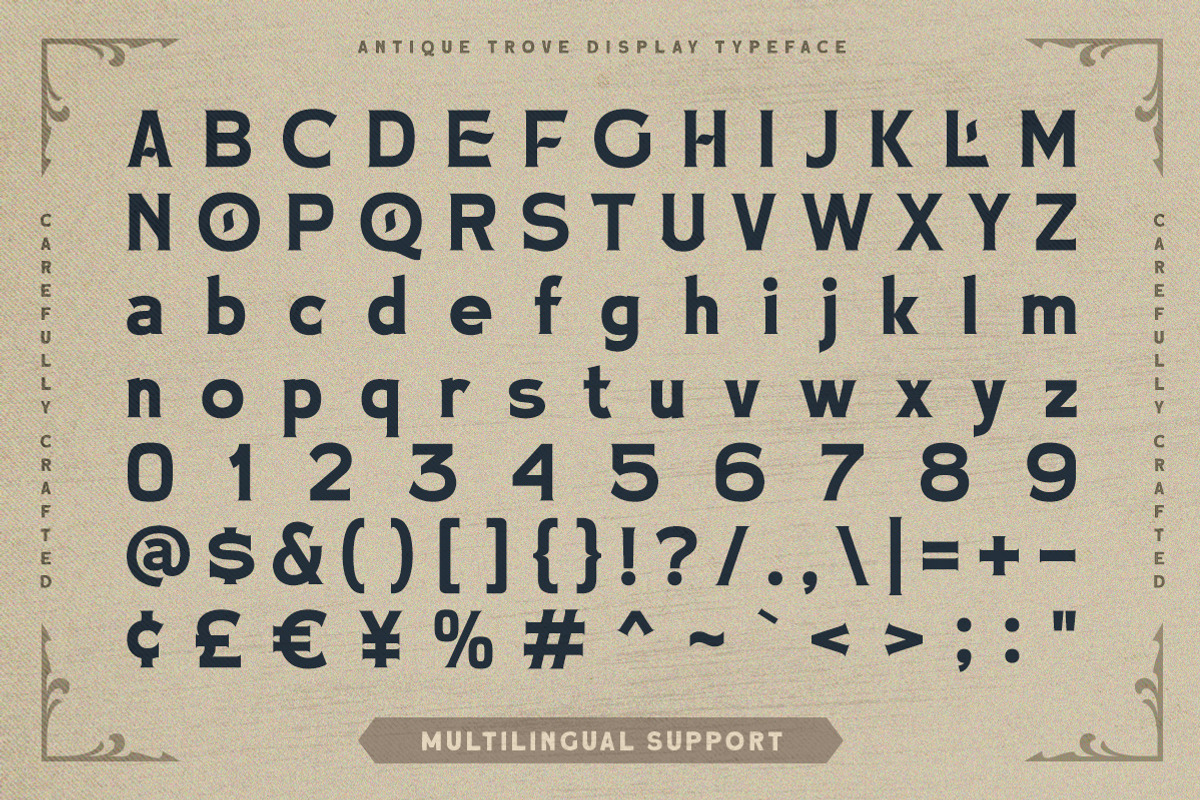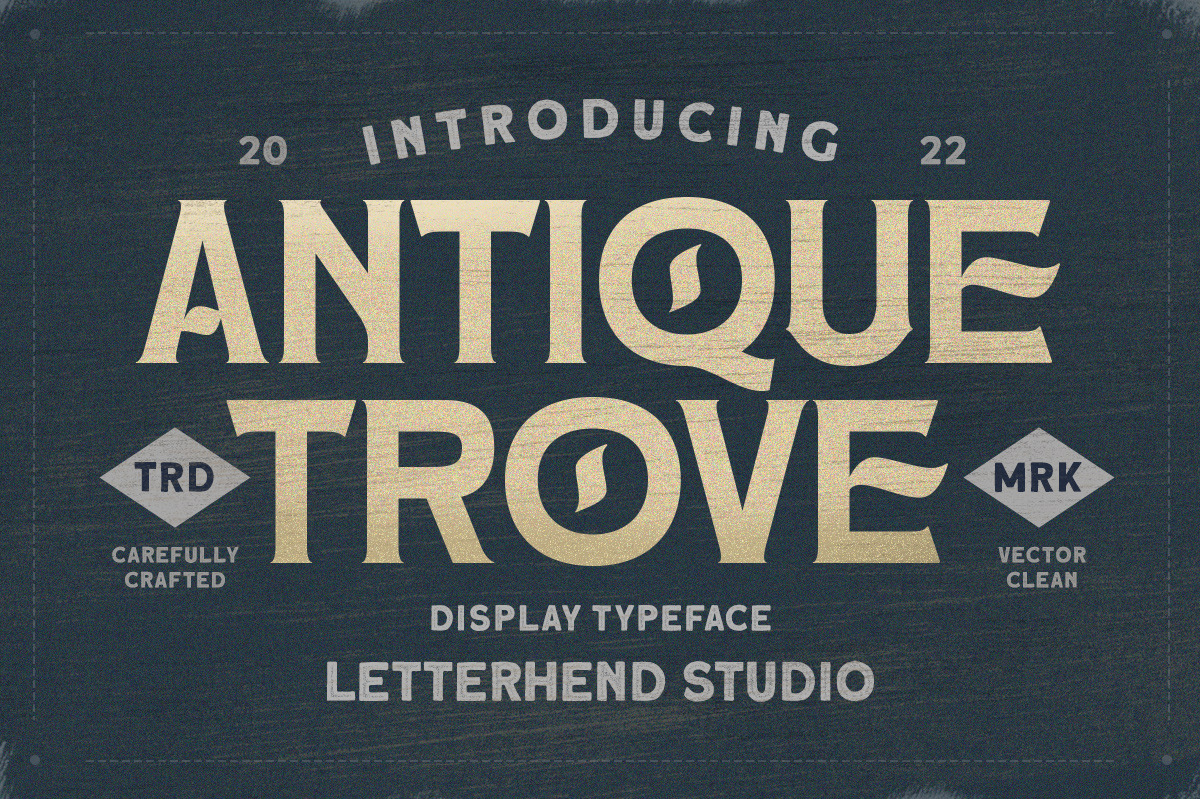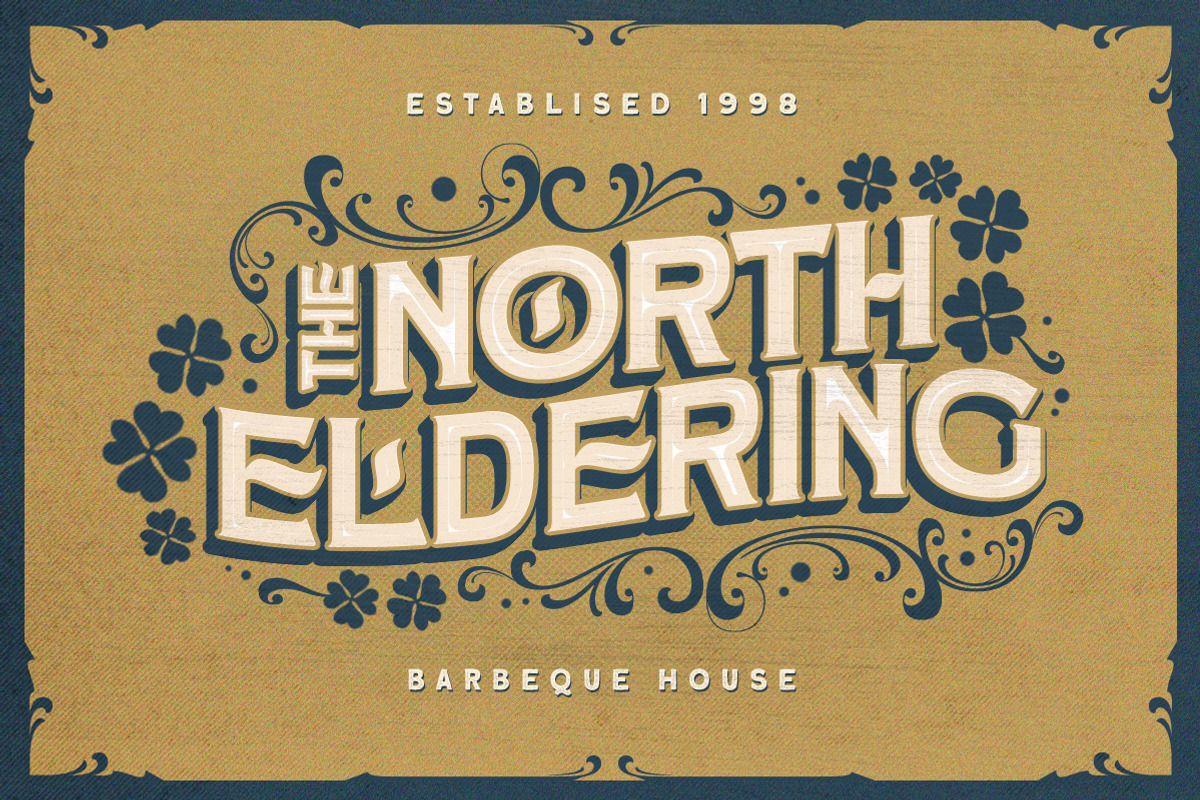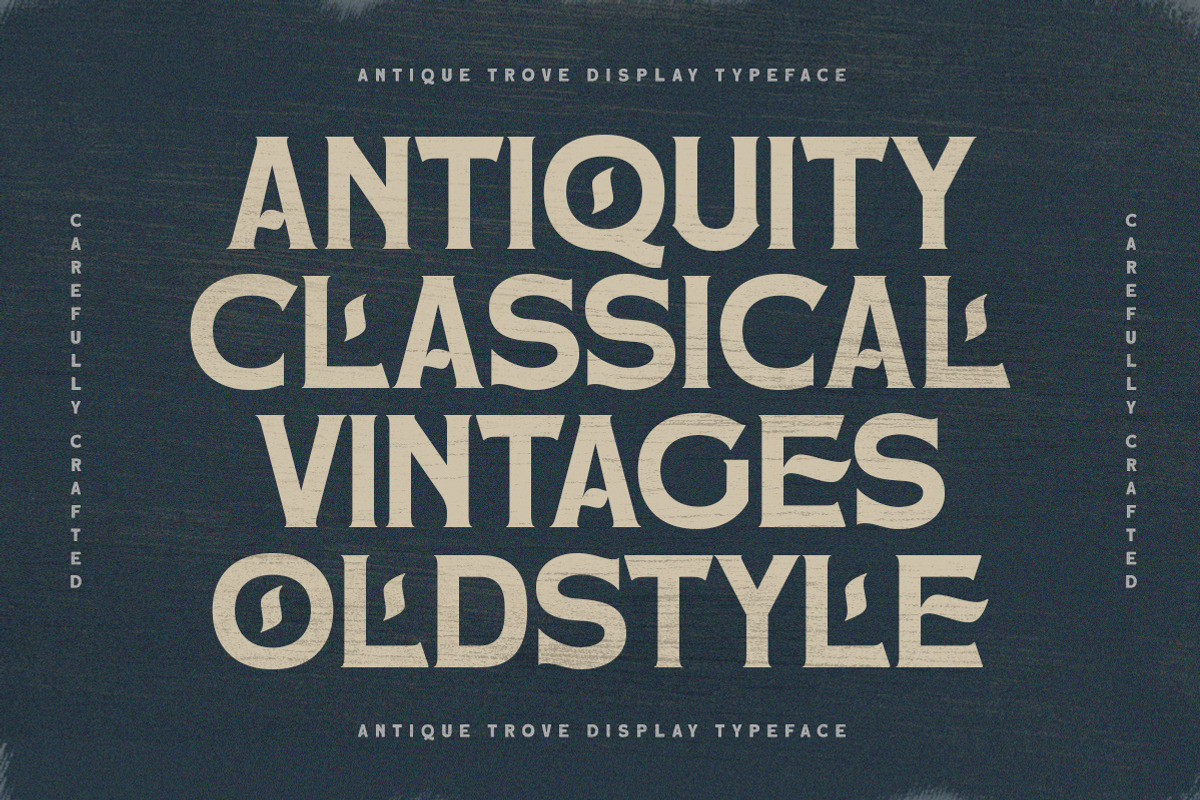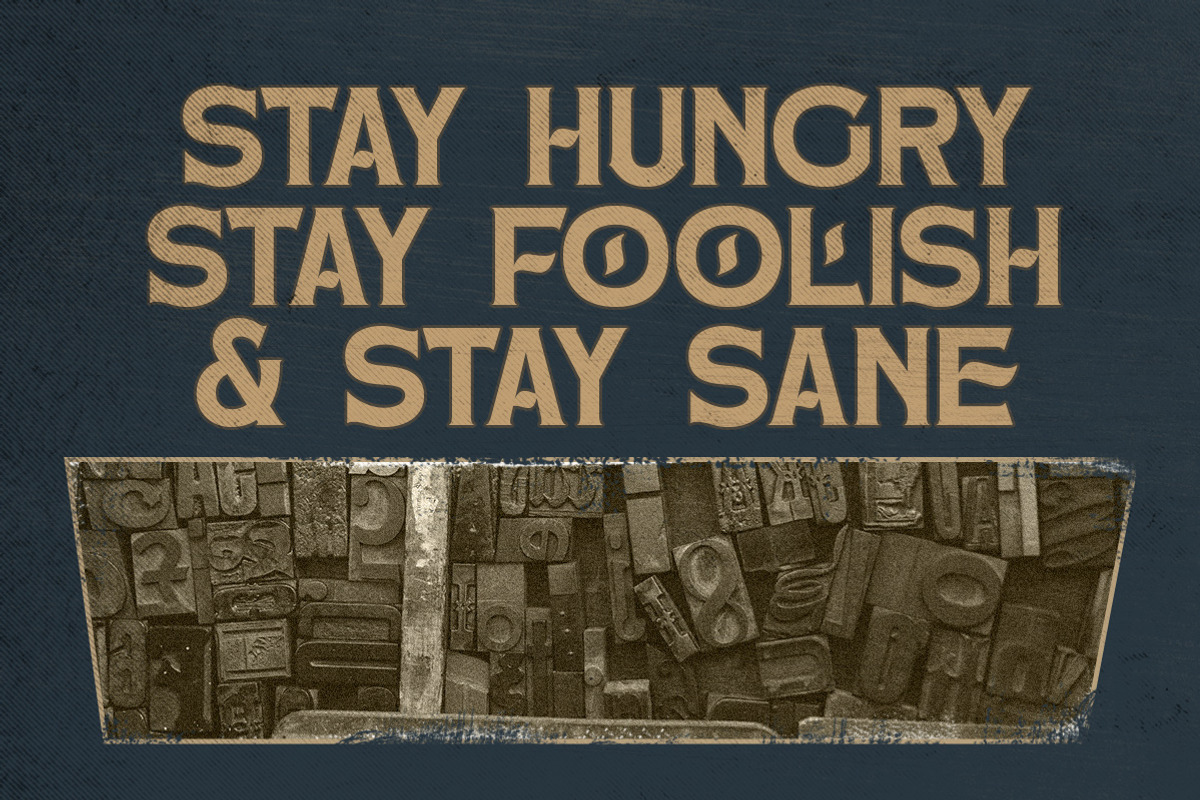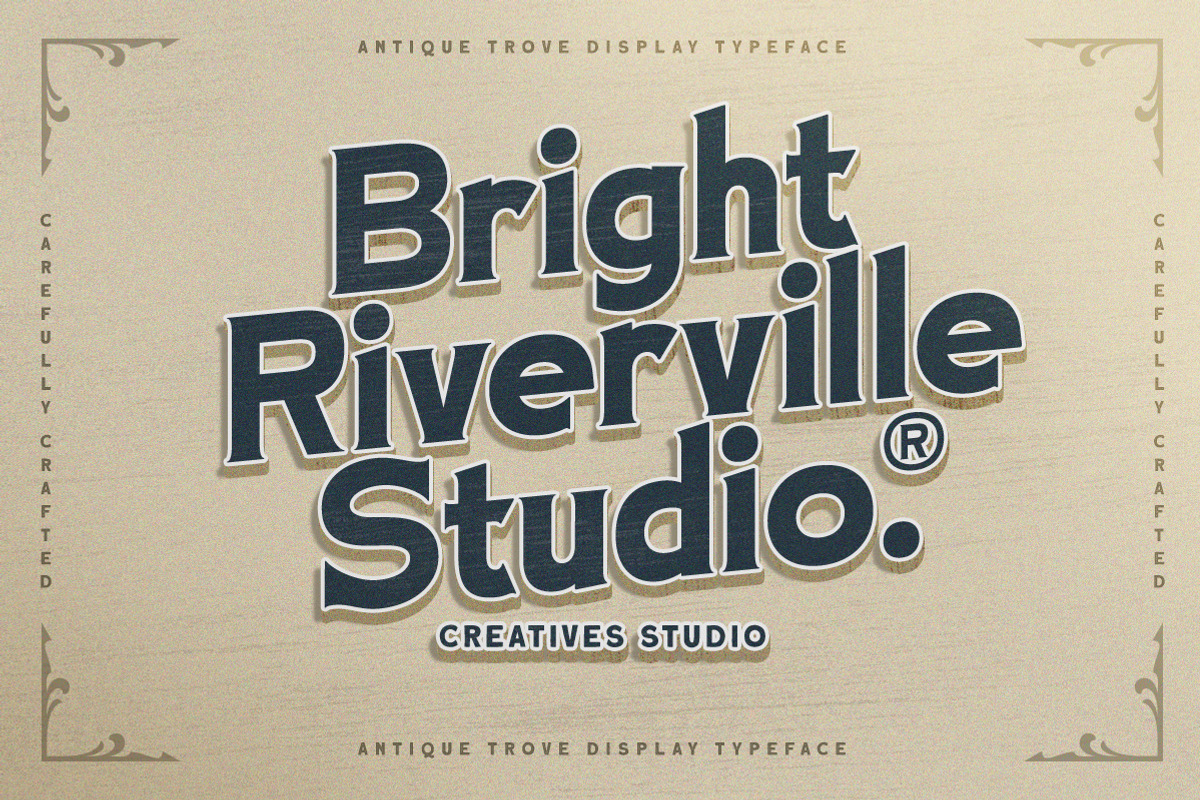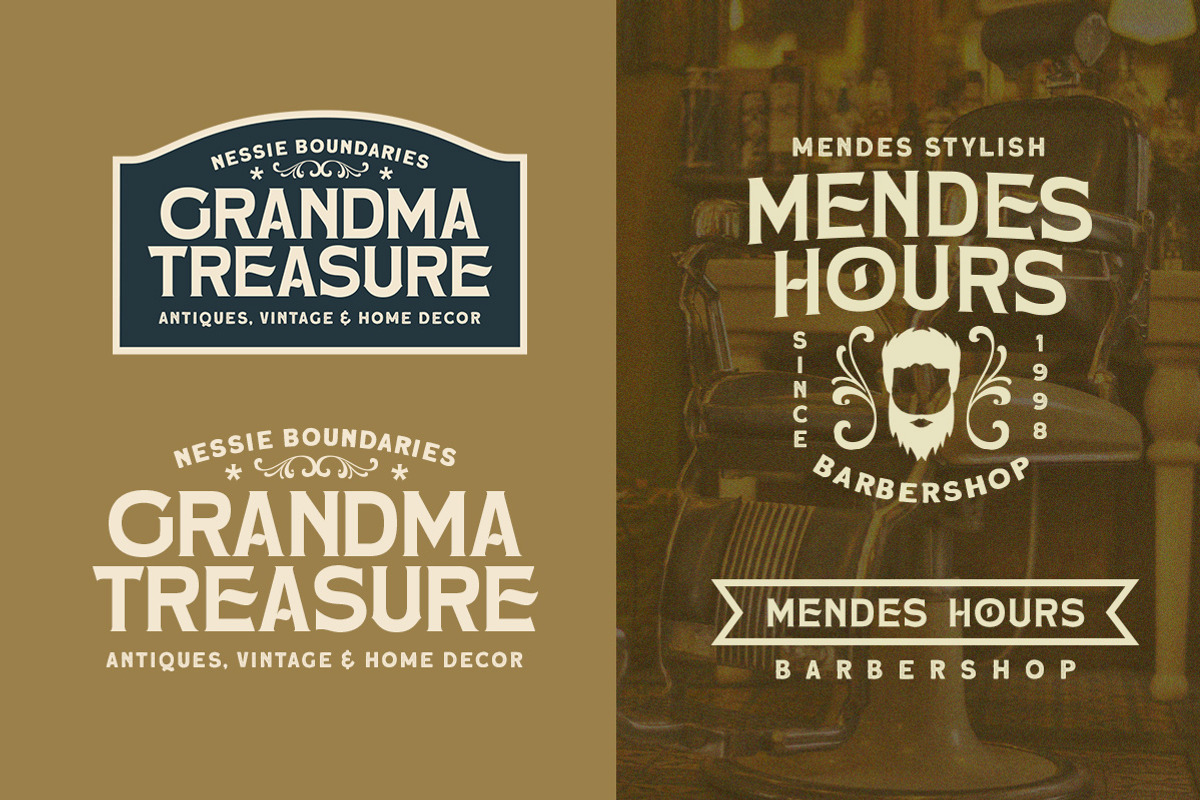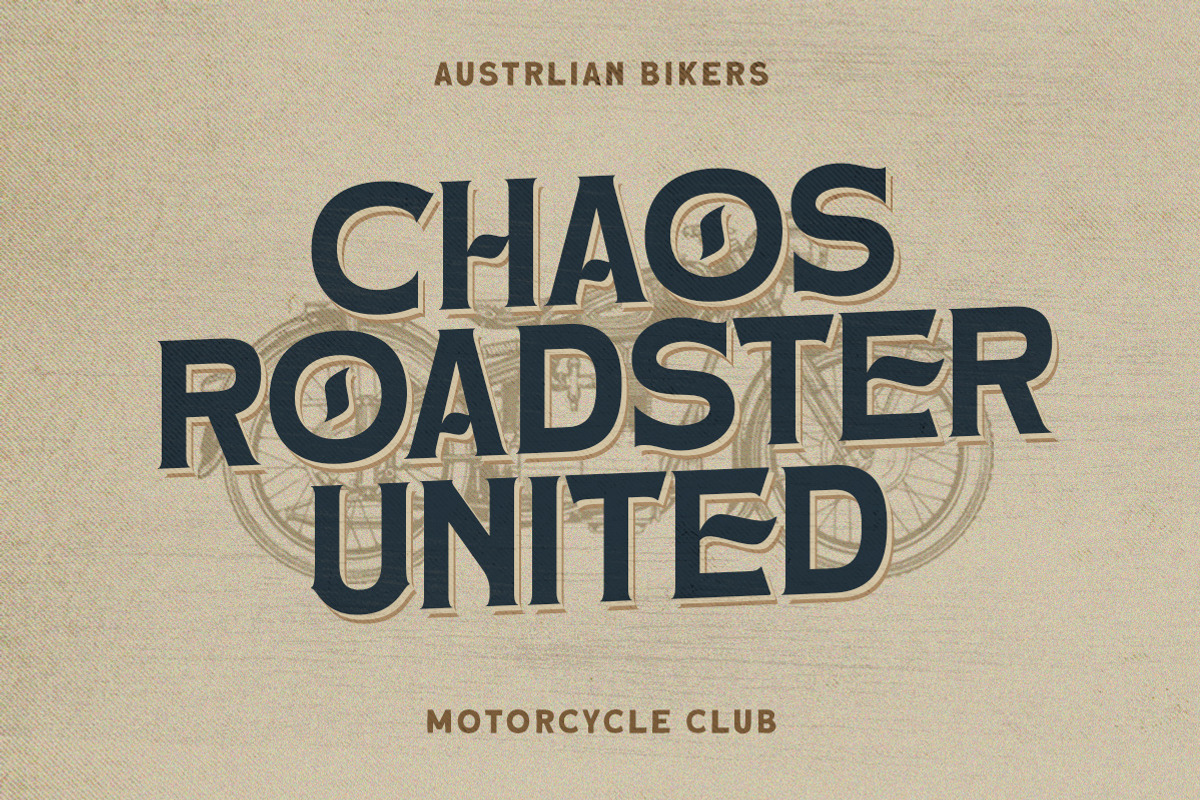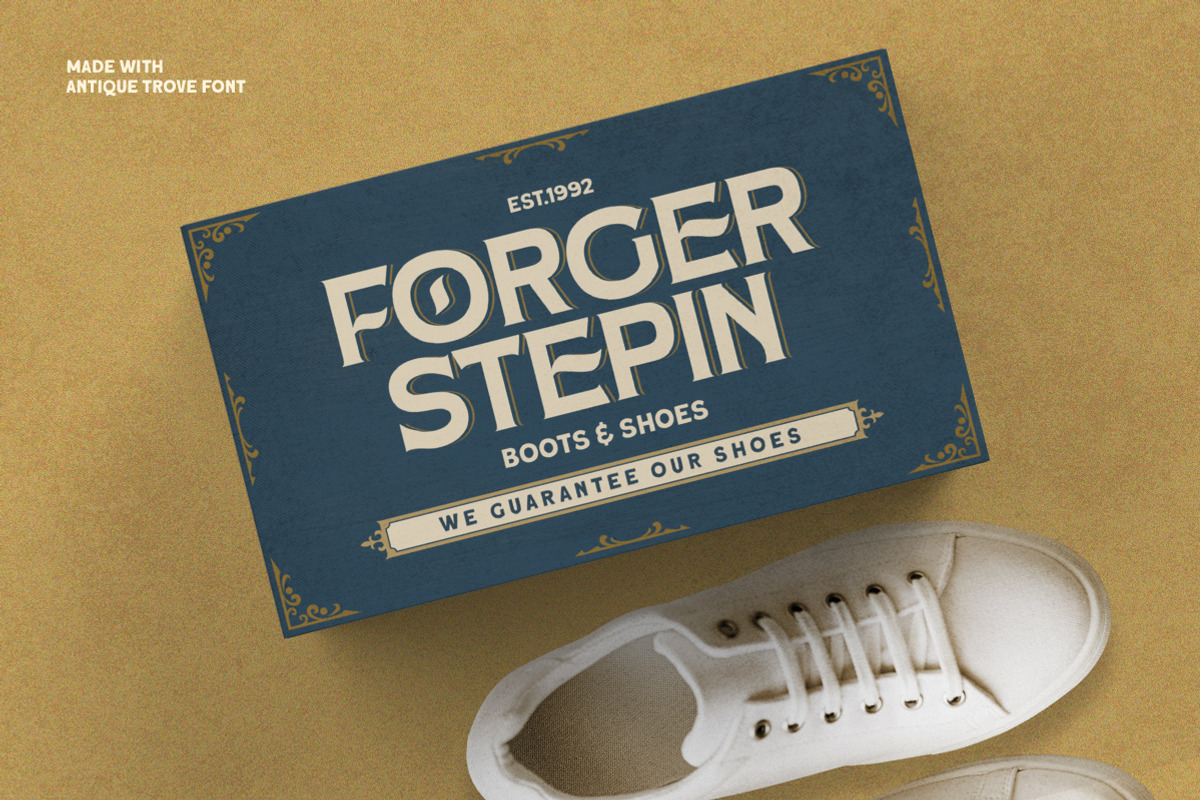
Antique Trove - Display Font
Antique Trove is a classic display font. This type of font perfectly made which is need a standout font, and the other various formal forms such as invitations, labels, logos, magazines, books, greeting / wedding cards, packaging, fashion, make up, stationery, novels, labels or any type of advertising purpose.
- Lowercase & upercase